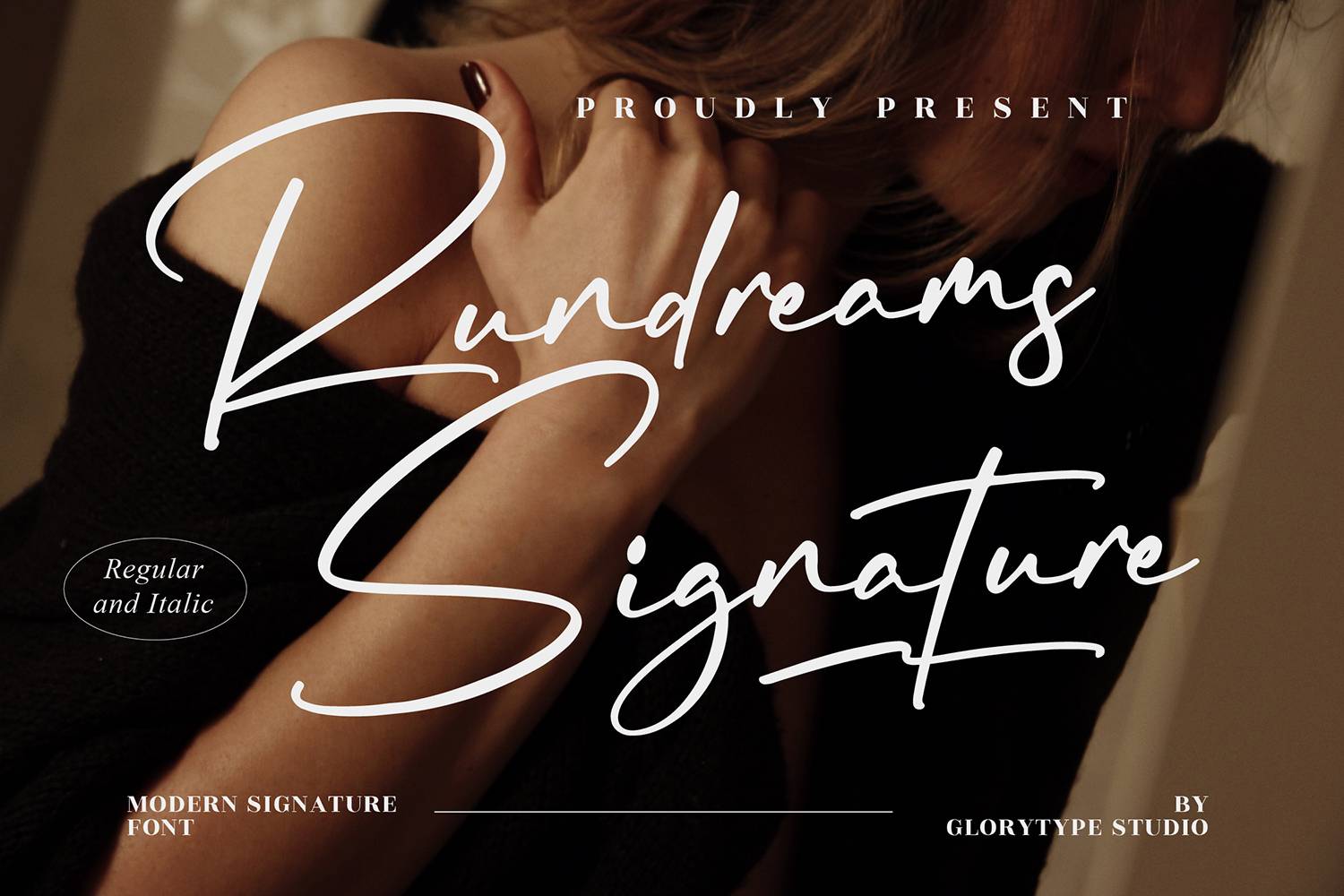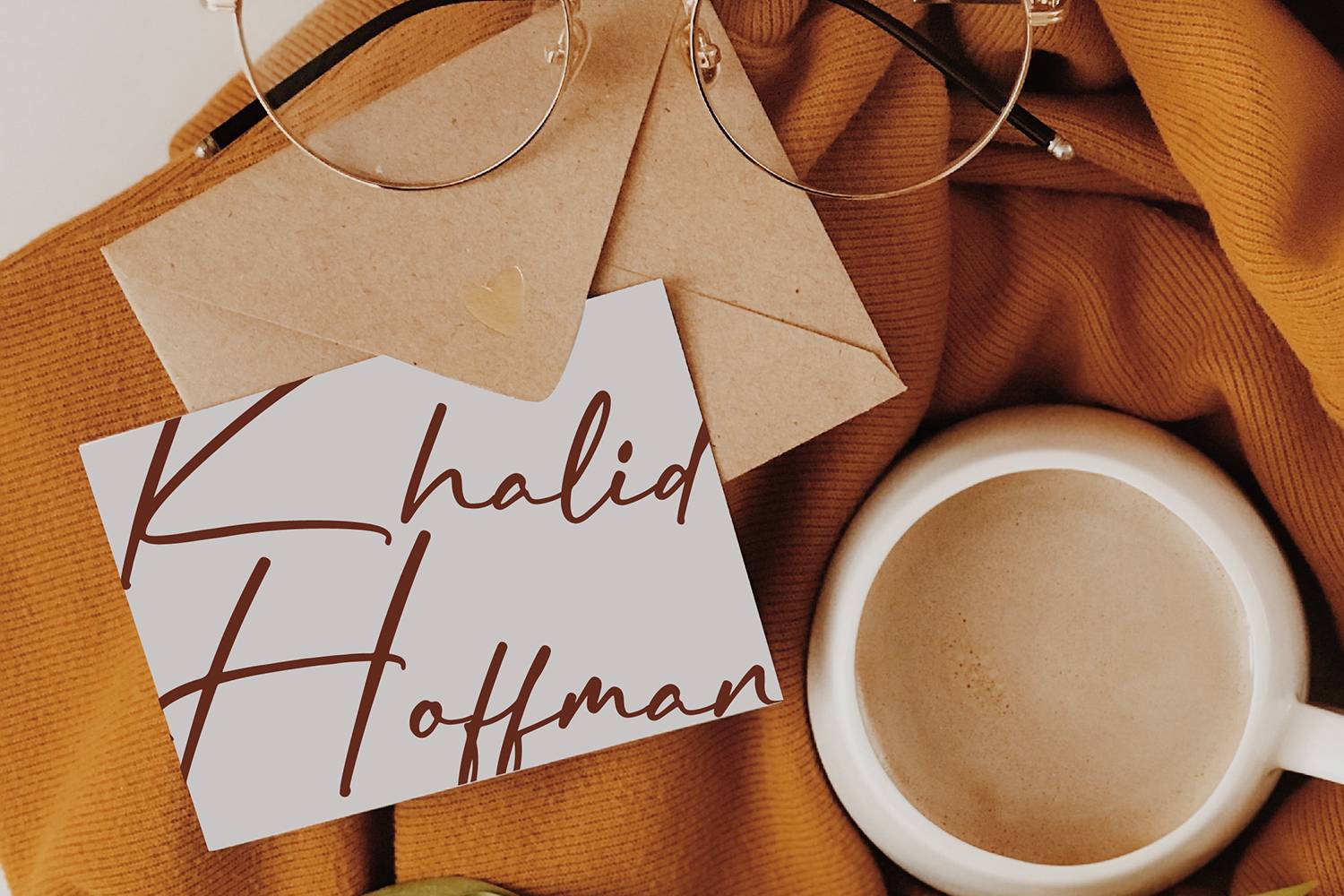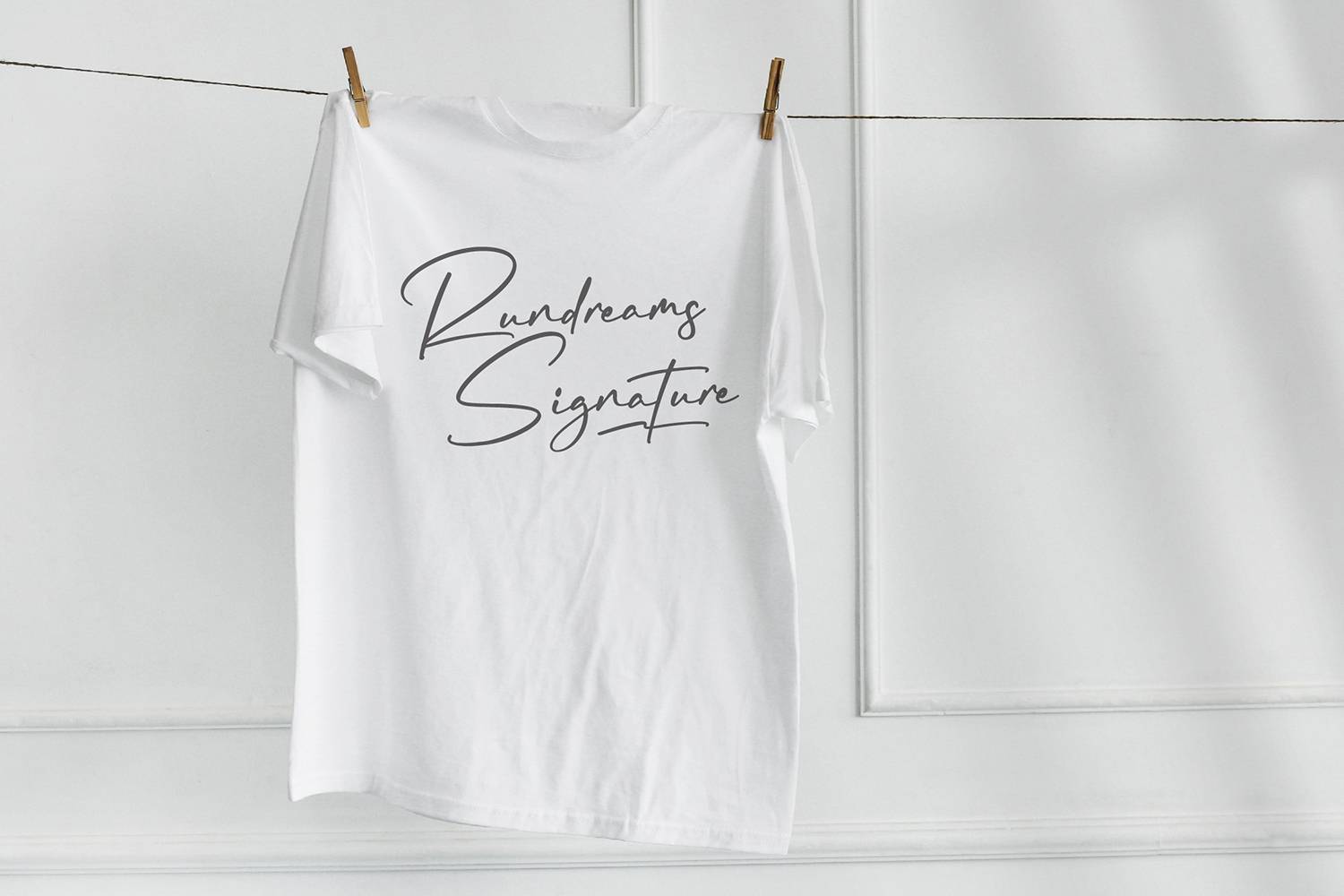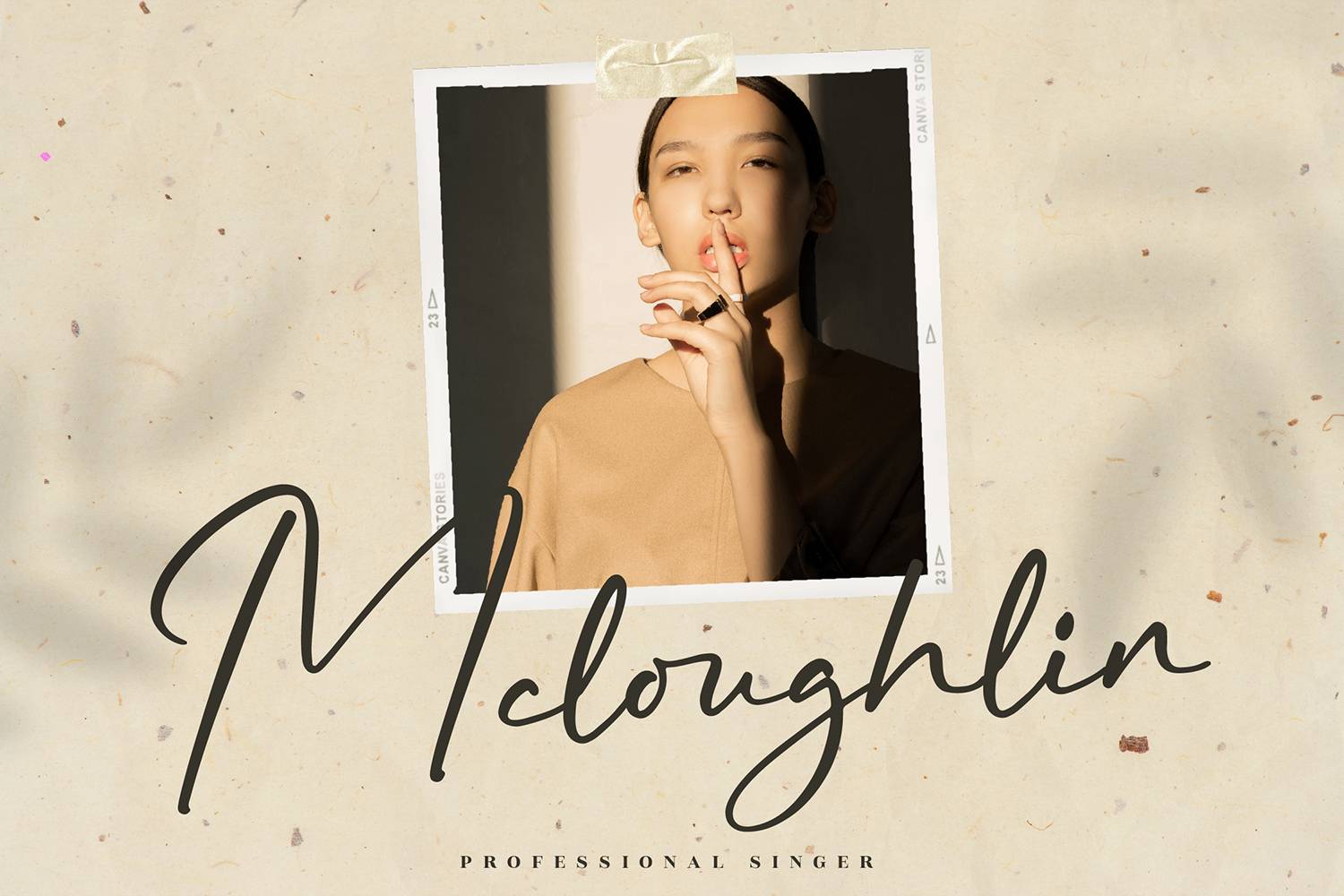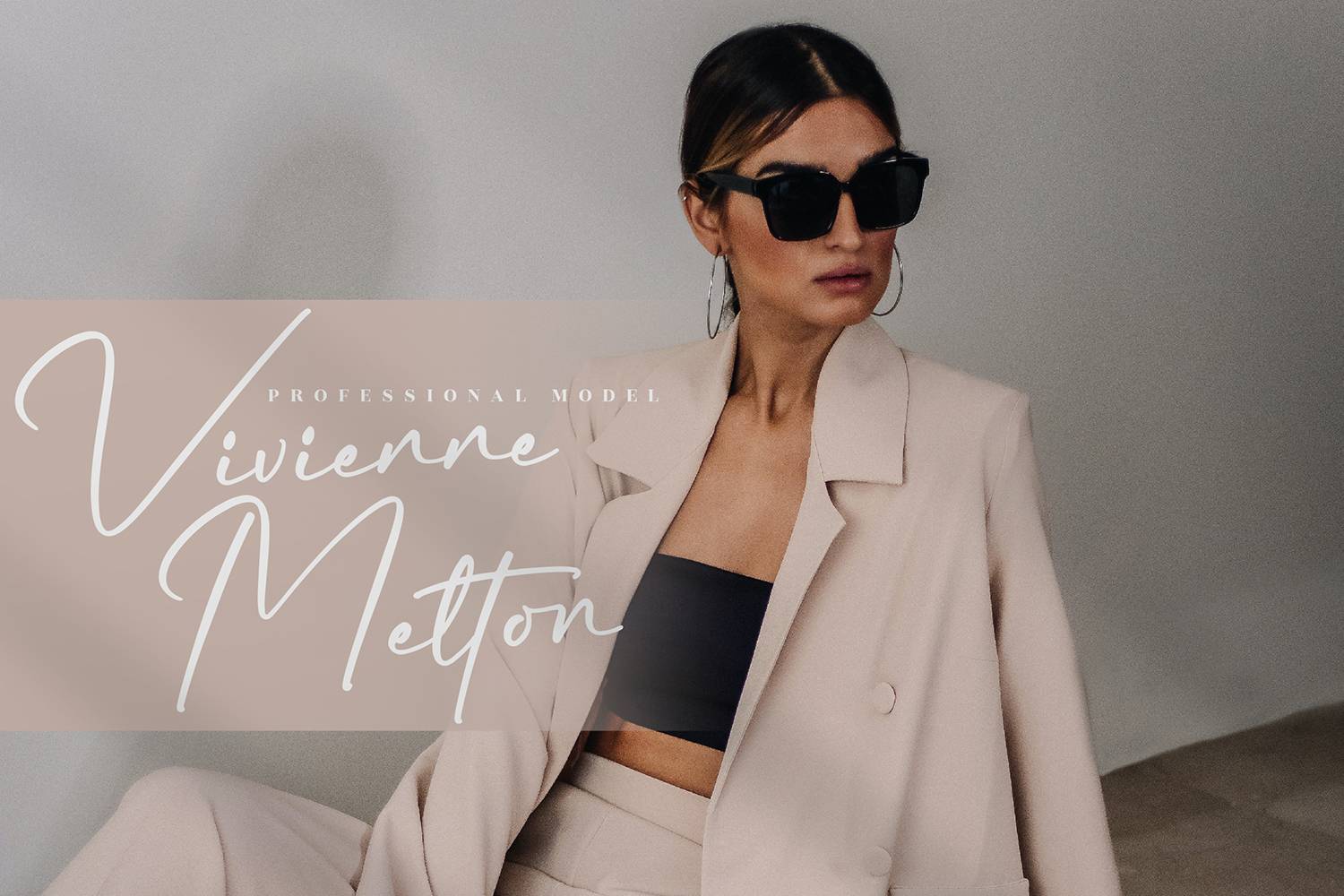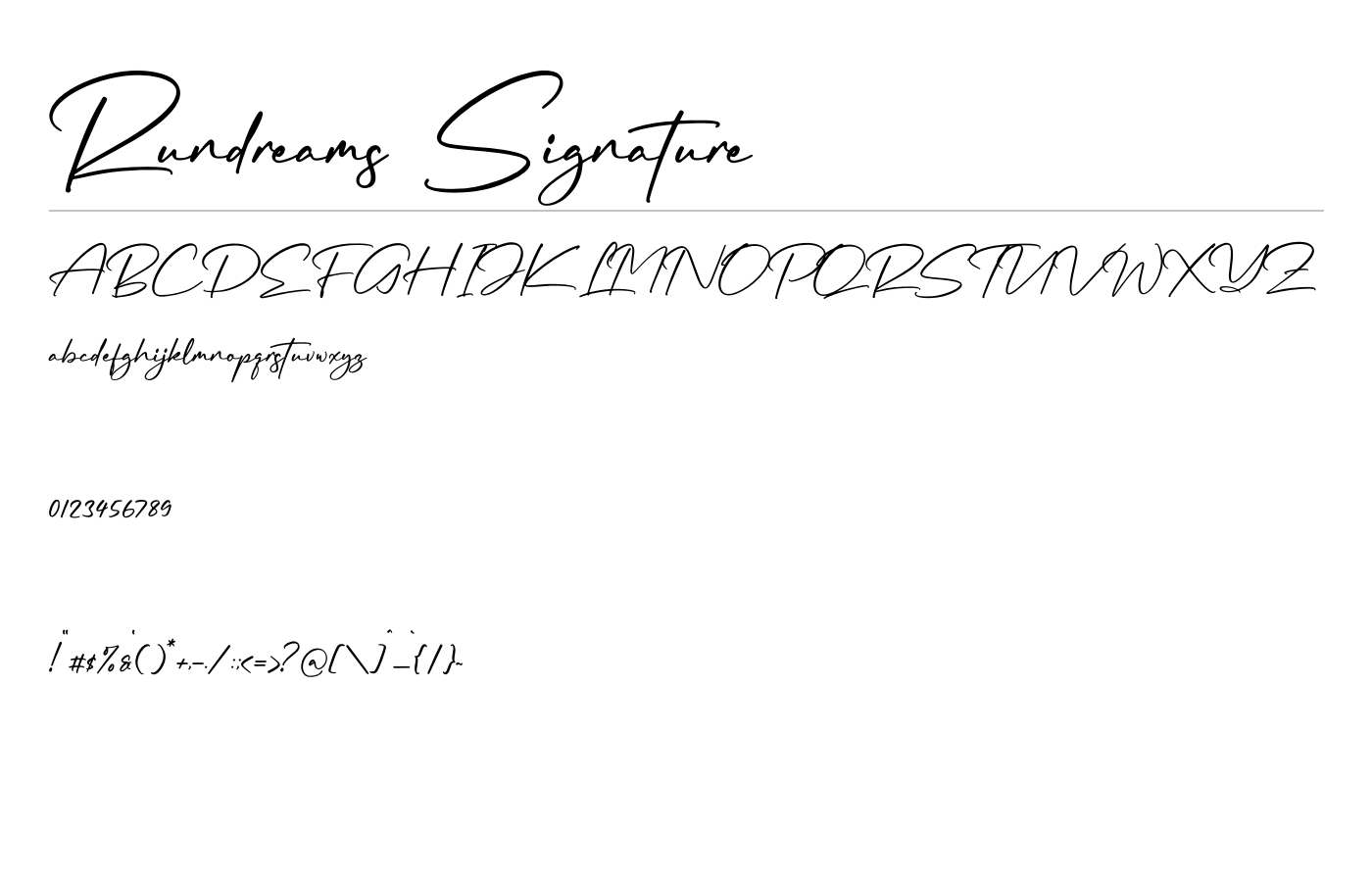
Rundreams Signature Font is a delicate, elegant script typeface that mimics natural, flowing handwriting with thin, smooth strokes and a stylish, airy feel. Its light weight and graceful curves make it perfect for sophisticated branding, invitations, and personal logos, conveying a sense of refinement and modern charm. This font works best in designs where a personal, luxurious touch is desired, particularly in fashion, beauty, and creative industries.
Rundreams Signature Font
About Rundreams Signature Font
| Font family | Rundreams Signature Font |